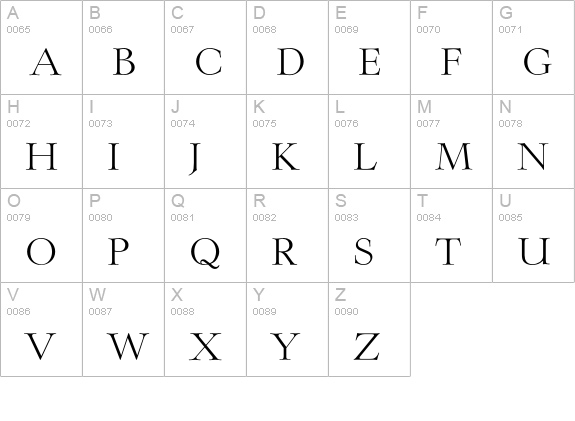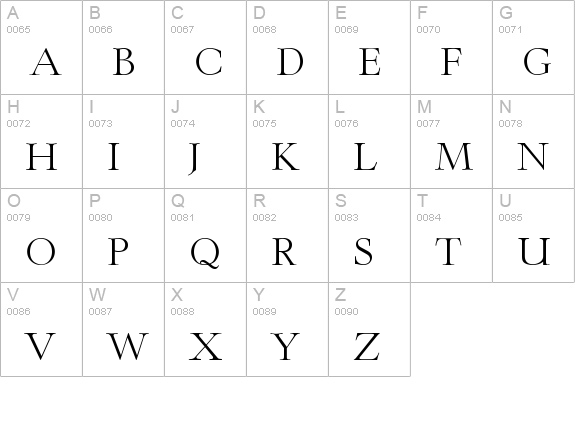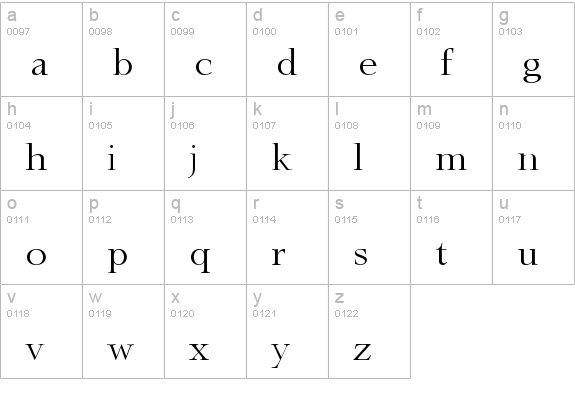
LingwoodEF-Light is a refined, elegant variant in the LingwoodEF typeface family \xE2\x80\x94 well suited to elegant body text, refined sub-headings, and luxury branding.
LingwoodEF-Light is a modern and elegant font that exudes sophistication and style. Its sleek and clean design makes it perfect for a wide range of projects, from branding to editorial design. The thin strokes and subtle curves of this font create a sense of refinement and grace. One of the best things about LingwoodEF-Light is that it is completely free to download. You can easily access this beautiful font at FontsMarket.com, where it is available for anyone looking to elevate their design projects with a touch of class and elegance. Whether you are working on a website, brochure, or any other creative project, LingwoodEF-Light is sure to add a touch of sophistication to your designs. Download it today and start creating stunning visuals that leave a lasting impression.